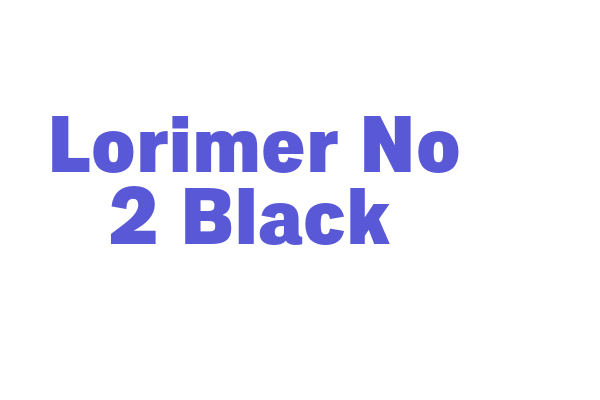
Lorimer No 2 Black is a sleek and modern typeface designed by James Puckett. Part of the Lorimer No 2 font family, this bold and striking style is perfect for making a statement in headlines, logos, and branding materials. Its clean lines and strong presence make it an ideal choice for projects that require a bold and impactful look.
Font Name: Lorimer No 2 Black
Designer: James Puckett
Font Family: Lorimer No 2